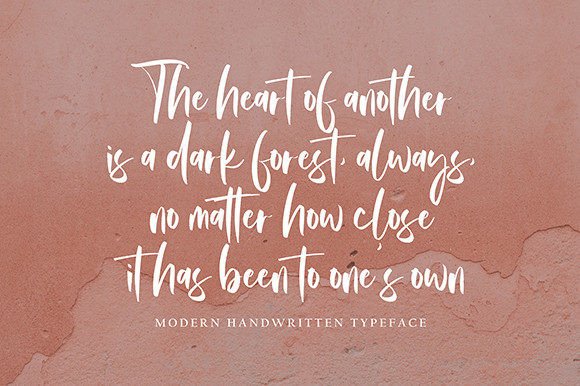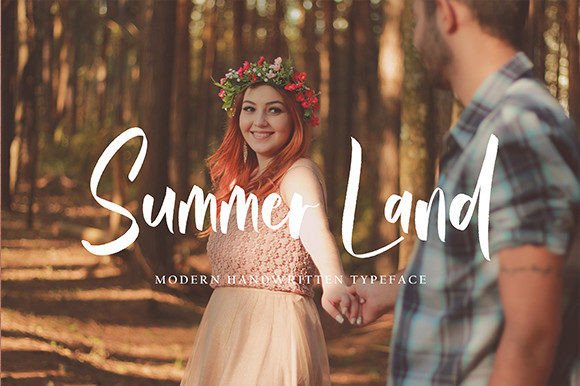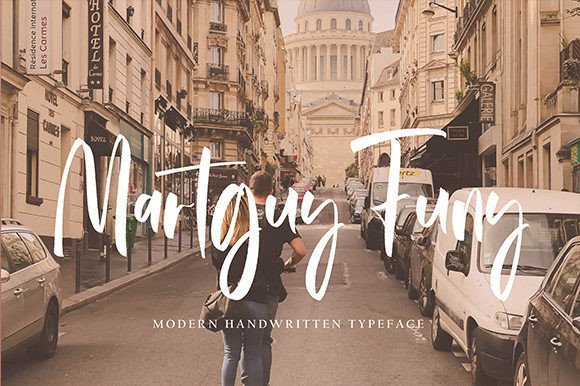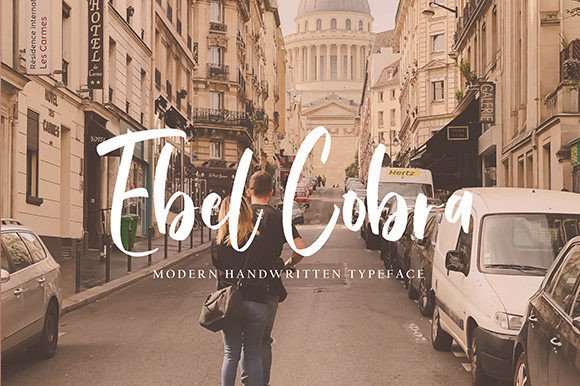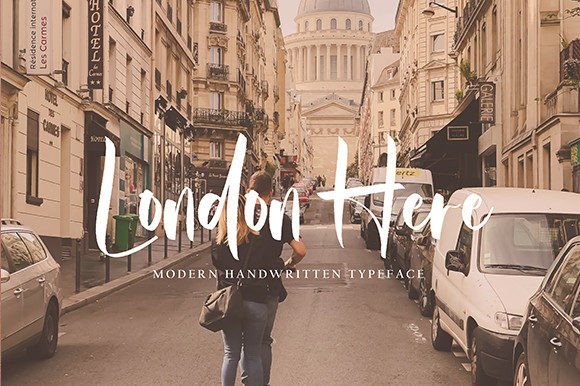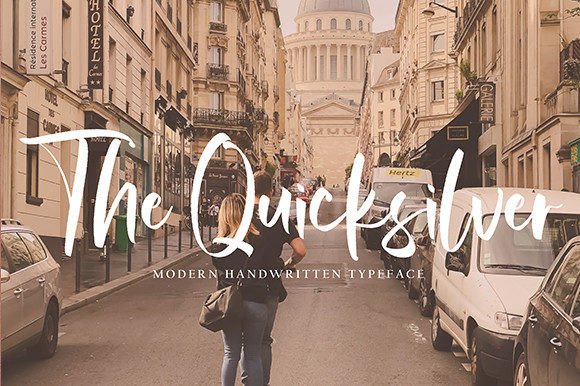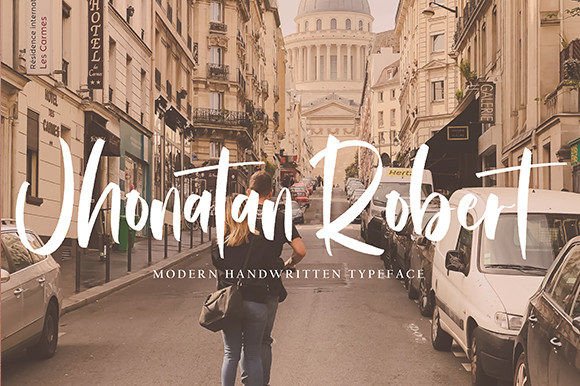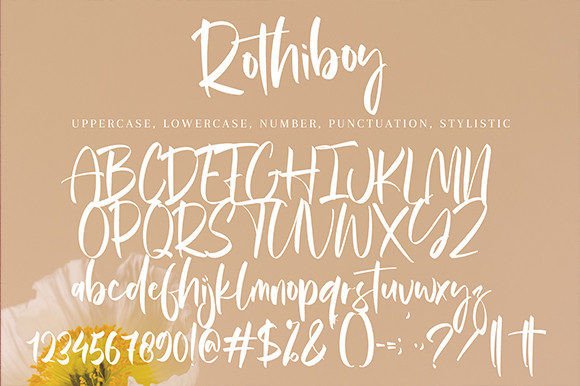
Rothhiboy Font
About Rothhiboy Font
**Rothiboy: A Cool and Modern Handwritten Script Font**
*Rothiboy* is a contemporary handwritten script font that effortlessly brings a cool and modern vibe to your design projects. Its versatile and stylish nature makes it an invaluable addition to your font collection, as it has the potential to elevate a wide range of creative endeavors.
One of the standout features of *Rothiboy* is its cool and trendy appearance. The font’s clean lines and modern aesthetic make it a perfect choice when you want to convey a sense of sophistication and style in your designs. Its handwritten script style adds a touch of personality that sets it apart from traditional fonts.
With *Rothiboy*, your typography takes on a fresh and contemporary look. Whether you’re crafting branding materials, posters, banners, or websites, this font adds a level of professionalism that resonates with modern audiences. Its sleek and stylish letters make a lasting impression.
Logos designed with *Rothiboy* have a unique and memorable quality. If you want your brand to be perceived as trendy and forward-thinking, this font can help you achieve that image. Its modern script style communicates that your business is up-to-date and in tune with current trends.
Web design benefits from the clean and legible nature of *Rothiboy*. The font’s readability ensures that your online content is accessible and engaging. Use it for headings, call-to-action buttons, or body text to create a cohesive and contemporary website.
Printed materials, such as brochures and magazines, are enhanced by *Rothiboy’s* modern script. It adds a touch of elegance and sophistication to your layouts, making your content visually appealing and easy to read.
Social media graphics shine with the stylish flair of *Rothiboy*. Craft attention-grabbing posts, stories, and banners that resonate with modern audiences. This font’s trendy appearance helps your content stand out in the crowded world of social media.
Product packaging takes on a sleek and contemporary look with *Rothiboy*. Whether you’re designing labels, tags, or boxes, this font conveys a sense of quality and sophistication that appeals to consumers who appreciate modern aesthetics.
Beyond these applications, *Rothiboy* offers endless creative possibilities. Its versatility and modern style make it suitable for a wide variety of design projects, from apparel and stationery to digital presentations and more. Its potential to elevate any creation lies in its cool and modern vibe.
In summary, *Rothiboy* is a cool and modern handwritten script font that adds a touch of sophistication and style to your design projects. Its contemporary appeal makes it a valuable asset for branding, web design, print materials, social media graphics, product packaging, and various other creative endeavors. Embrace the coolness of *Rothiboy* and watch your designs shine with modern flair.